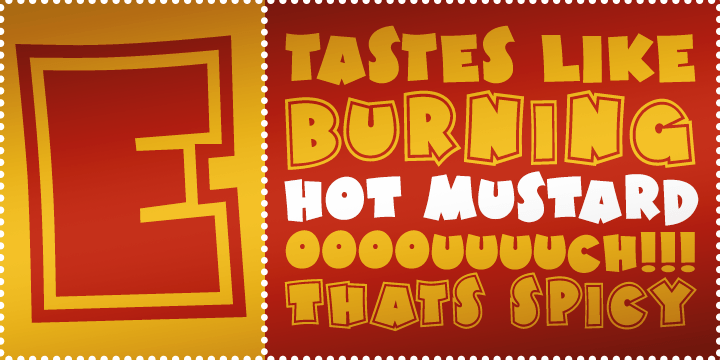
HomeFont BrosNew Wave (1980s)Hot Mustard BTN New Wave (1980s)Sans Serif Hot Mustard BTN FacebookXPinterestWhatsApp 1 of 1 About Hot Mustard BTN Hot Mustard is a spicy, bold, fun display typeface and a perfect complement to its fraternal twin, Wild Ketchup!  DOWNLOAD ON FONT BROSThis font is sold and delivered by Font Bros. Font Canyon may earn a commission if you buy through this link. People also explored Easy Hope Font Jenny Font Acton Brendria Font Ratumba Font Garamount Font Paradise Font Behind the Scenery Font The Rinden Font 508 0 TagsHot Mustard BTN Font Previous articleYes ScriptNext articleHustle LEAVE A REPLY Cancel reply Comment: Please enter your comment! Name:* Please enter your name here Email:* You have entered an incorrect email address! Please enter your email address here Website: Save my name, email, and website in this browser for the next time I comment. Personal Use Free Bakk Trieng Personal Use Free Read more about this font Shelly Personal Use Free Read more about this font Rolling Door Personal Use Free Read more about this font Ashay Personal Use Free Read more about this font BLOG Modern Sans-Serif Fonts That Brands Love in 2025 In 2025, modern sans-serif fonts remain a top choice for brands looking to project clarity, professionalism, and... Top 7 Google Fonts Alternatives for Faster and Privacy-Friendly Web Design (2025) Best Fonts for T-Shirt Design – Top 2025 Picks Free vs Paid Fonts: Why Investing in Premium Fonts Is Worth It